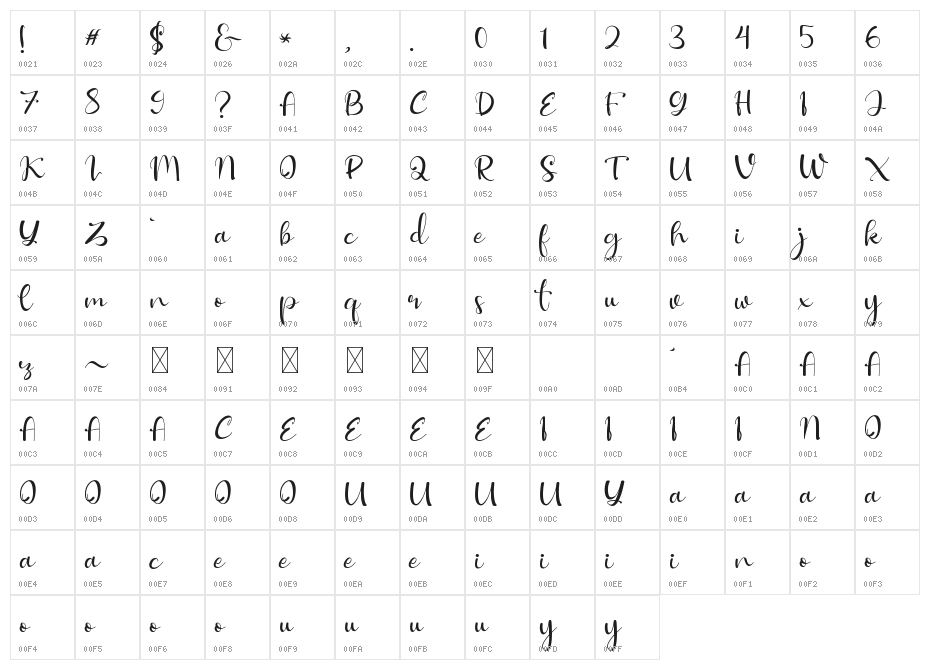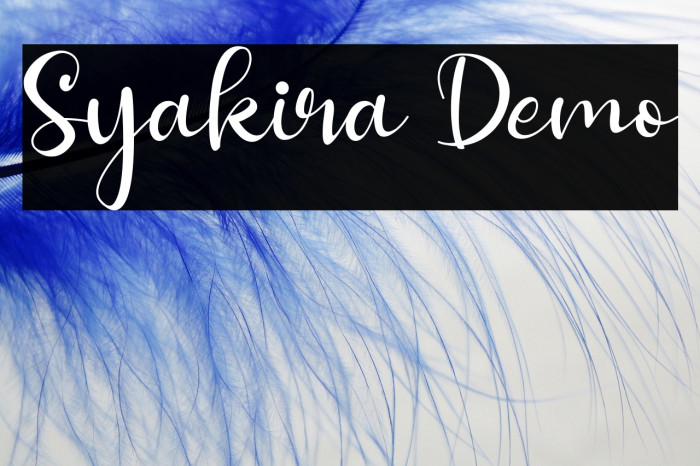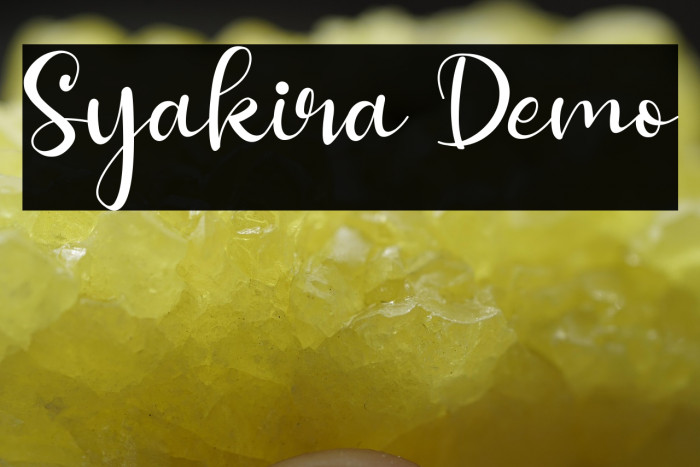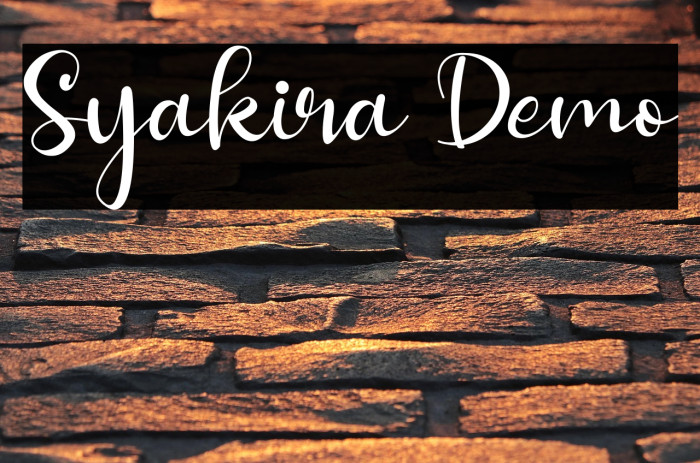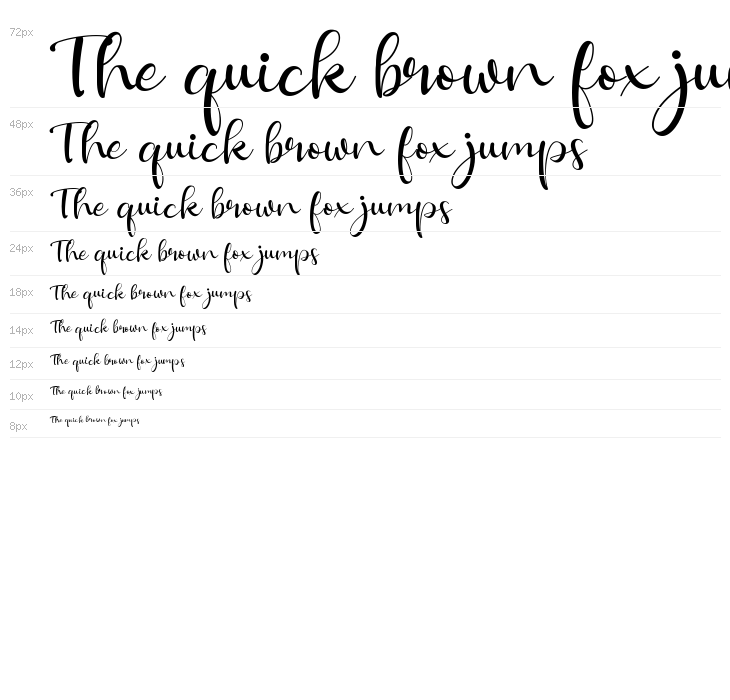
Syakira Demo Font
Syakira Demo Description
This font exudes a playful and elegant charm, characterized by its flowing script style with a modern twist. The uppercase letters are bold and dynamic, featuring a mix of thick and thin strokes that create a sense of movement and grace. The lowercase letters continue this theme with a more delicate touch, maintaining the fluidity and elegance of the script. Numbers and special characters are crafted with the same attention to detail, ensuring consistency throughout. The overall design is both sophisticated and approachable, making it suitable for a variety of creative projects.